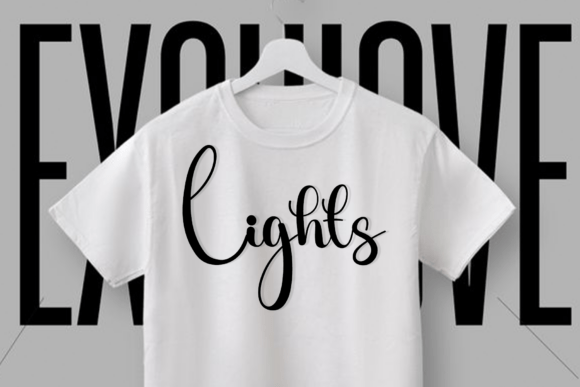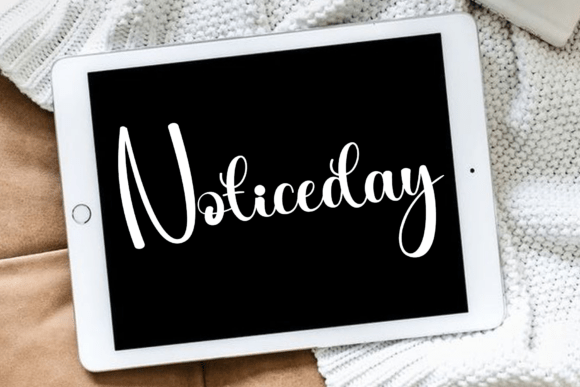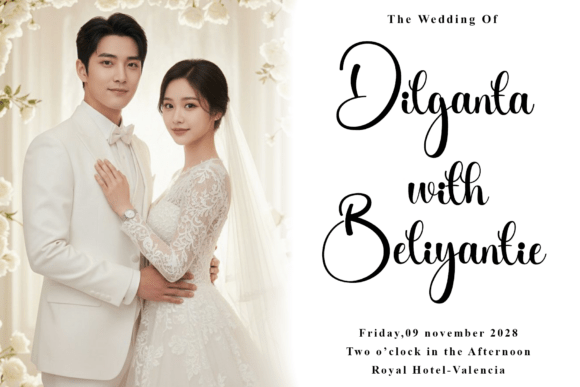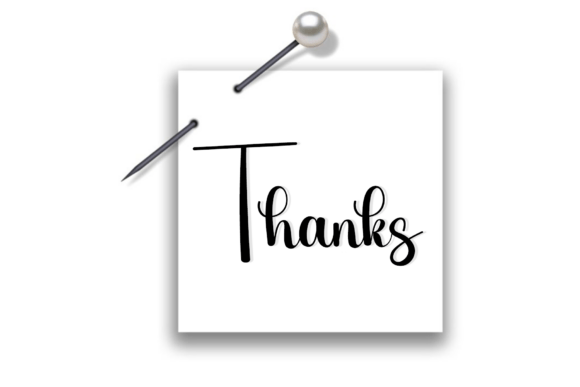
The Ultimate Guide to Casualday Font: Elevate Your Designs with a Timeless Handwritten Touch
I’ll never forget the design project that led me to discover Casualday Font. I was working on a branding project for a new coffee shop, and I was struggling to find the perfect font to capture their warm and cozy vibe. That’s when I stumbled upon Casualday, a lovely and timeless handwritten font that completely transformed my design. In this article, I’ll share my experience with Casualday, its features, and how to make the most of it in your designs.
An Honest Review of Casualday Font
So, what makes Casualday Font so special? Here are some things I love about it:
- ✨ Unique and beautiful touch: Every letter has a distinct character that adds a personal touch to your designs.
- ✅ Versatile: Casualday is perfect for creating eye-catching logos, branding, and quotes.
- 💫 Timeless: The font’s classic handwritten style ensures it won’t go out of fashion anytime soon.
Of course, no font is perfect, and Casualday has a few quirks:
- 🤔 Limited multilingual support: While Casualday covers the basic English alphabet, it may not support more complex languages.
- ⚠️ Occasional kerning issues: As with any font, you might need to adjust kerning for optimal results.
One of the best things about Casualday Font is its support for OpenType features and glyphs. These features allow you to add more variety and personality to your text. Here are some tips on how to access and use them:
The Story Behind Casualday Font
While the true story behind Casualday Font remains a mystery, it’s easy to imagine a designer who wanted to create a font that captures the warmth and personality of handwritten text. Perhaps they drew inspiration from classic handwritten fonts, combined with modern twists and elegant lines. Whatever the story, Casualday Font has become a beloved choice among designers and crafters.
| Font Name | Casualday Font |
| What is Casualday Font best used for? | Casualday Font is perfect for creating eye-catching logos, branding, and quotes. |
| Is Casualday Font suitable for body text? | While Casualday is a beautiful font, it’s best used for headings and titles. For body text, consider a more readable font. |
With its unique and beautiful touch, Casualday Font is sure to elevate your designs and add a personal touch. Whether you’re a designer, crafter, or creative hobbyist, Casualday is an excellent choice for your next project.